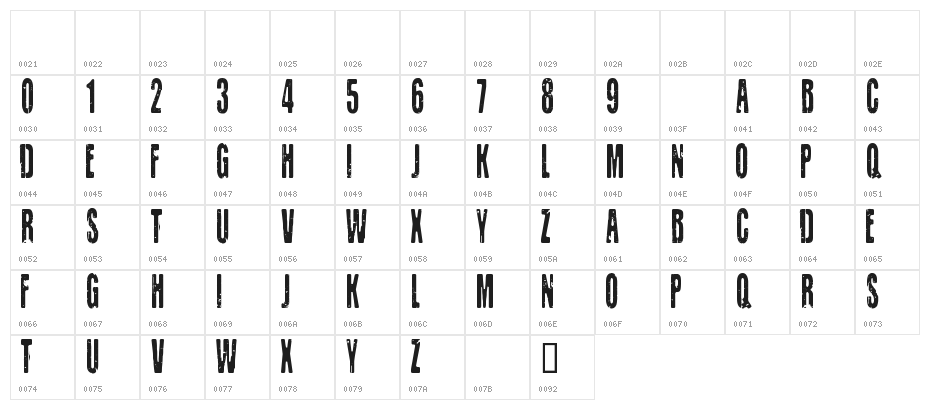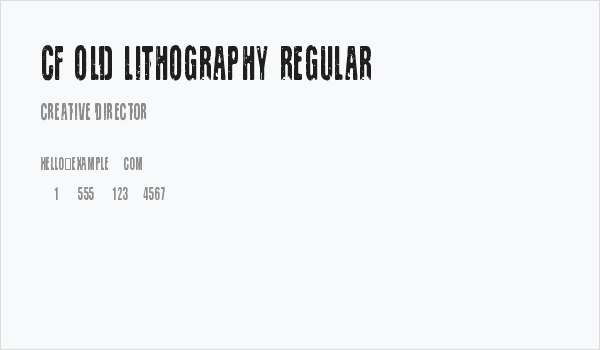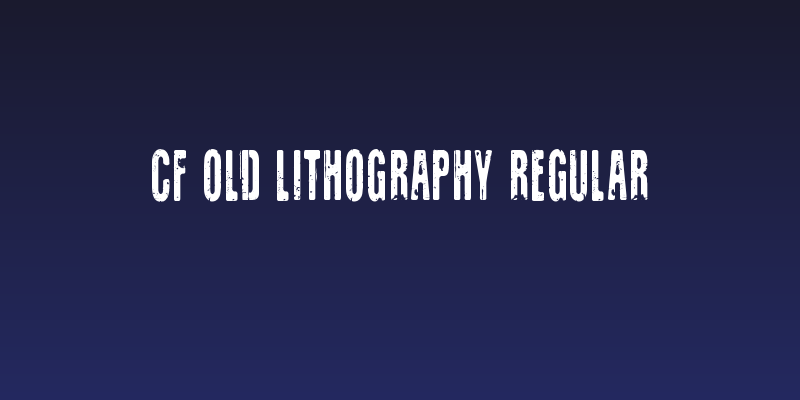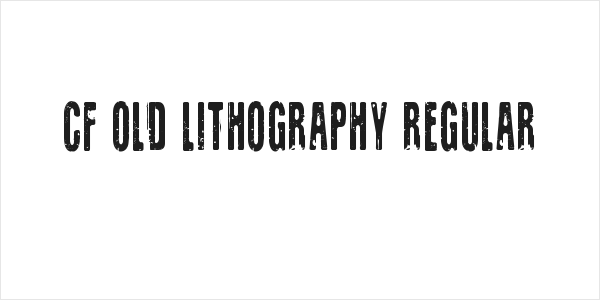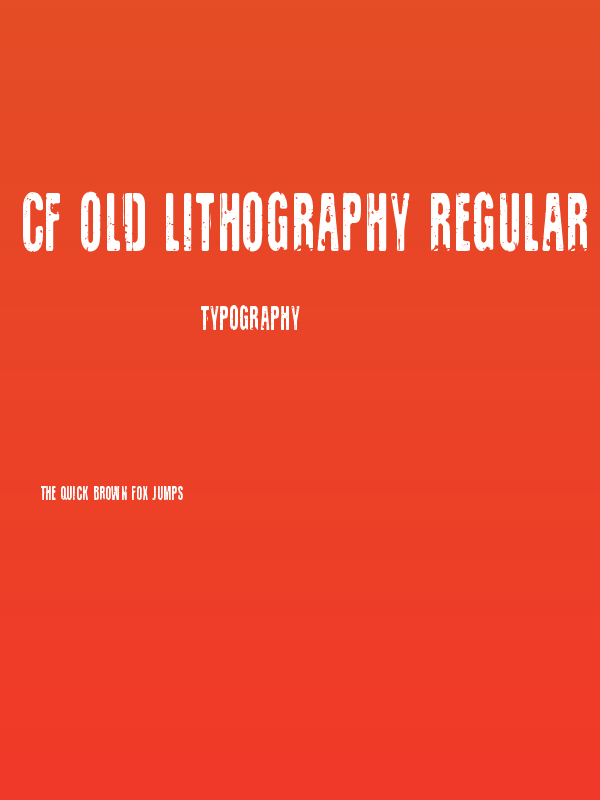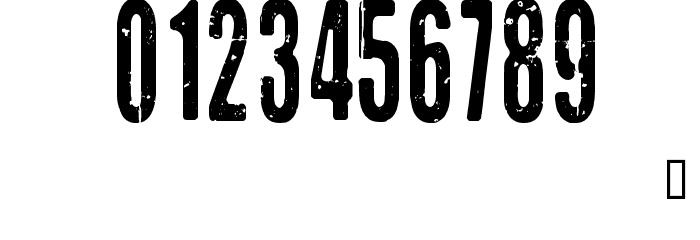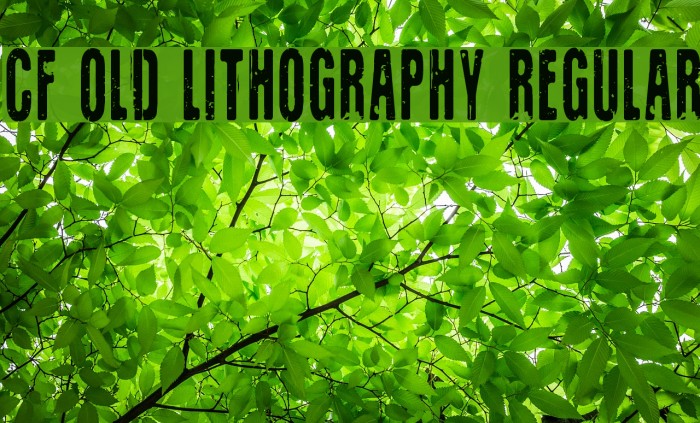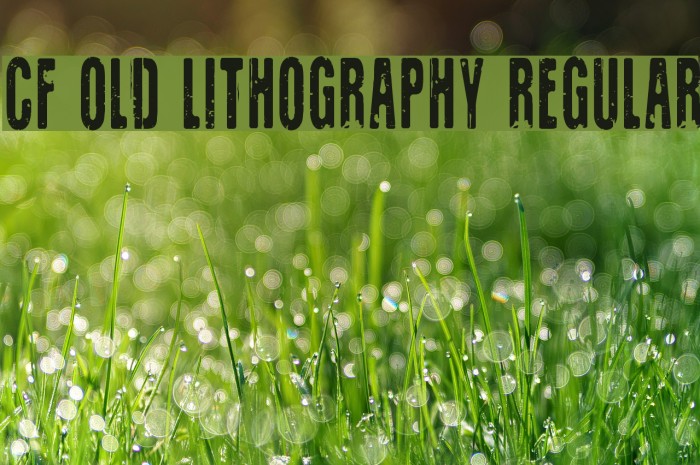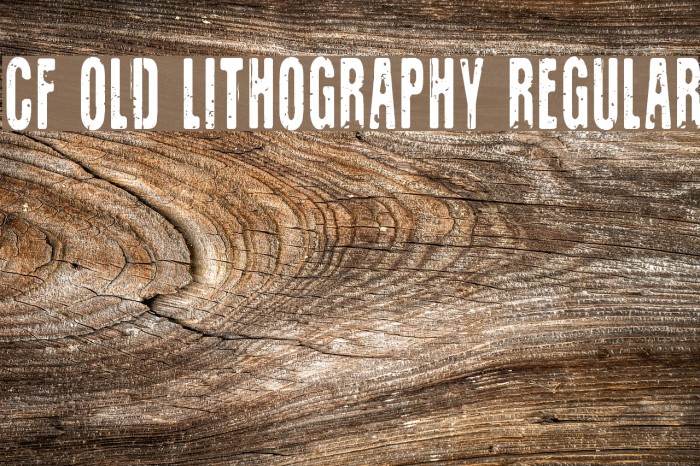
CF Old Lithography Regular Font
CF Old Lithography Regular Description
This font features a bold, distressed style that evokes a vintage, industrial feel. The characters are heavily textured, giving them a worn, aged appearance that suggests a history of use. The uppercase letters are prominent and commanding, while the numbers maintain the same rugged aesthetic. The overall look is reminiscent of old lithographic prints, with a gritty, tactile quality that adds depth and character. This font is ideal for projects that require a strong, impactful visual presence with a touch of nostalgia.
| Proposed Projects | Ideal for posters, album covers, branding for vintage-themed products, and any design requiring a strong, nostalgic impact. |